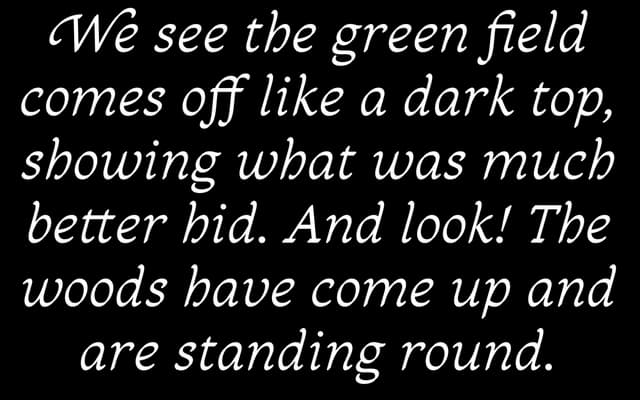
Sandleford Italic
An italic companion to Sandleford Regular, combining calligraphic warmth with enough character to function at display sizes.
Sandleford Italic pairs with Sandleford Regular to form a text family with display ambitions, built around calligraphic letterforms that retain energy at larger sizes. The font ships with 940 glyphs, covering small caps, ligatures and a broad range of foreign characters for multilingual use. It sits comfortably in editorial and book contexts where a companion italic needs its own presence rather than simply echoing the roman.
Described as calligraphic with display aspirations, the italic's origins in handwritten forms place it firmly in the calligraphic serif tradition, complementing a regular text companion.